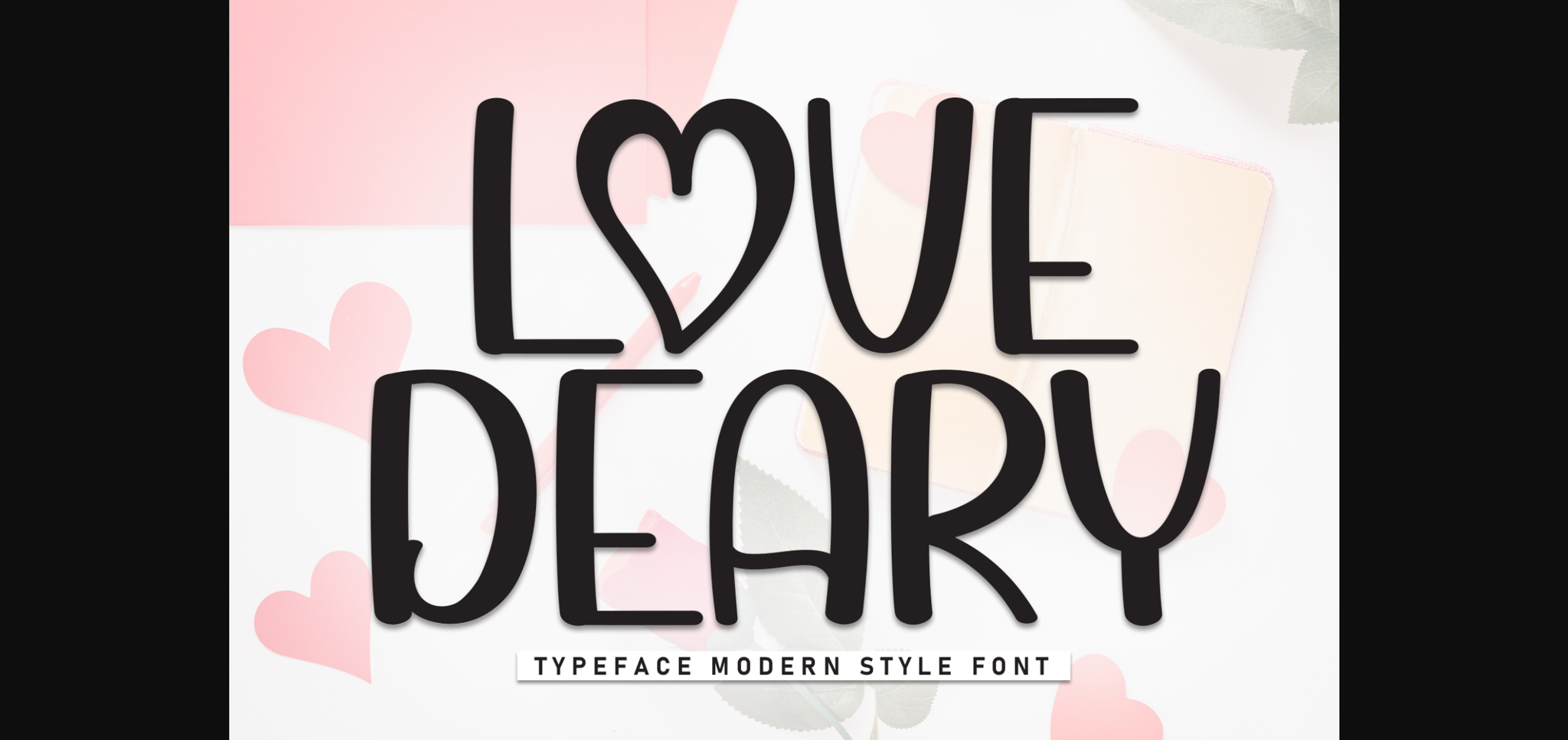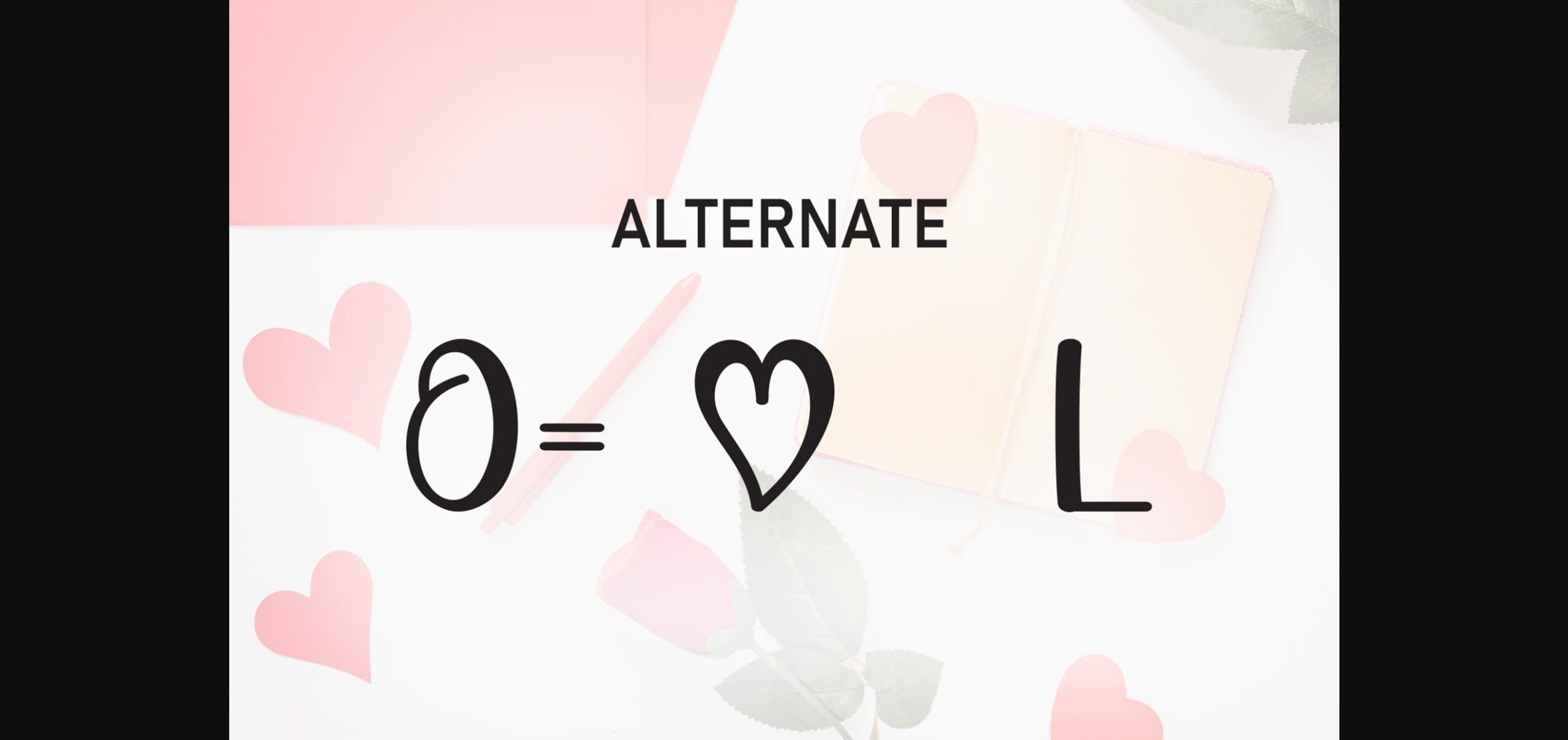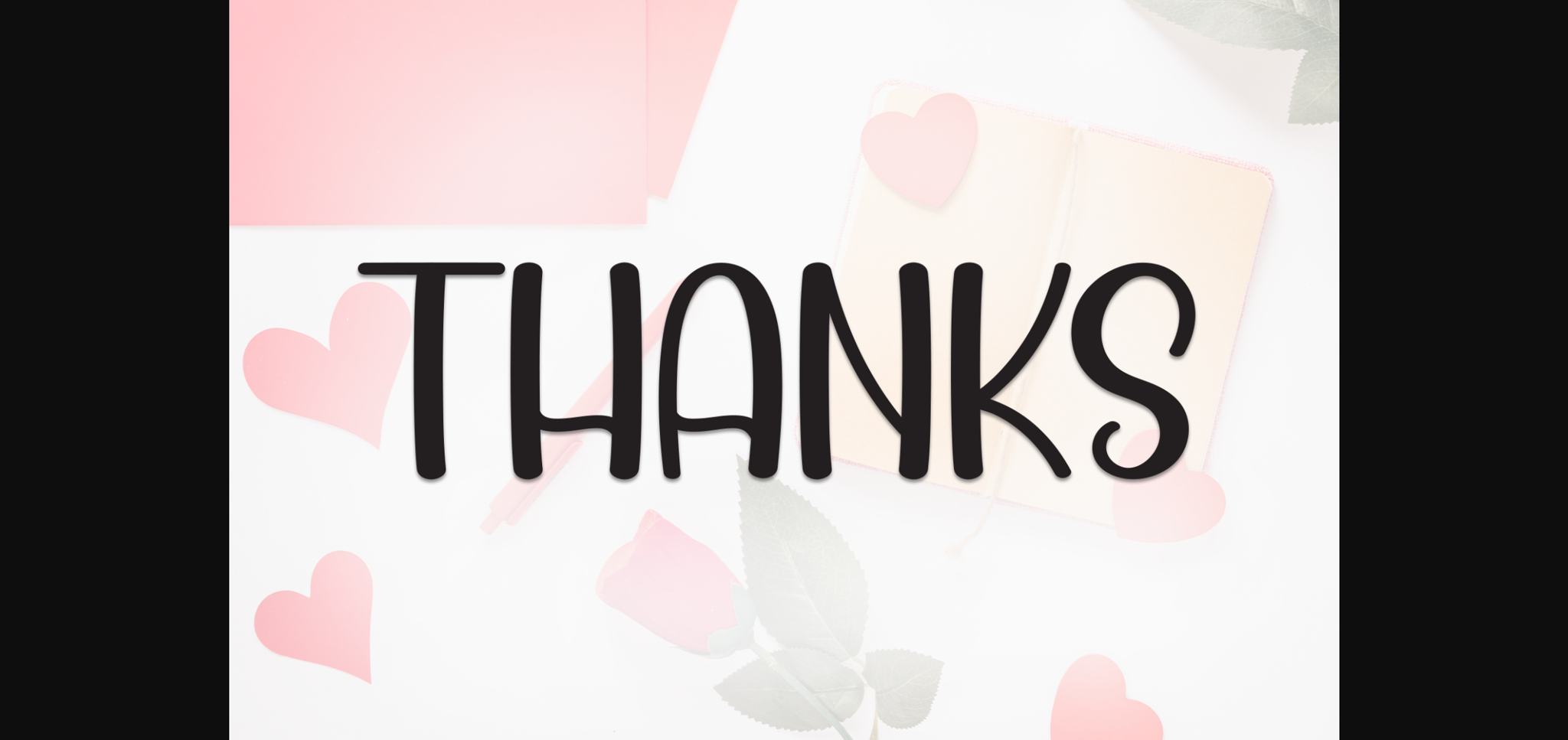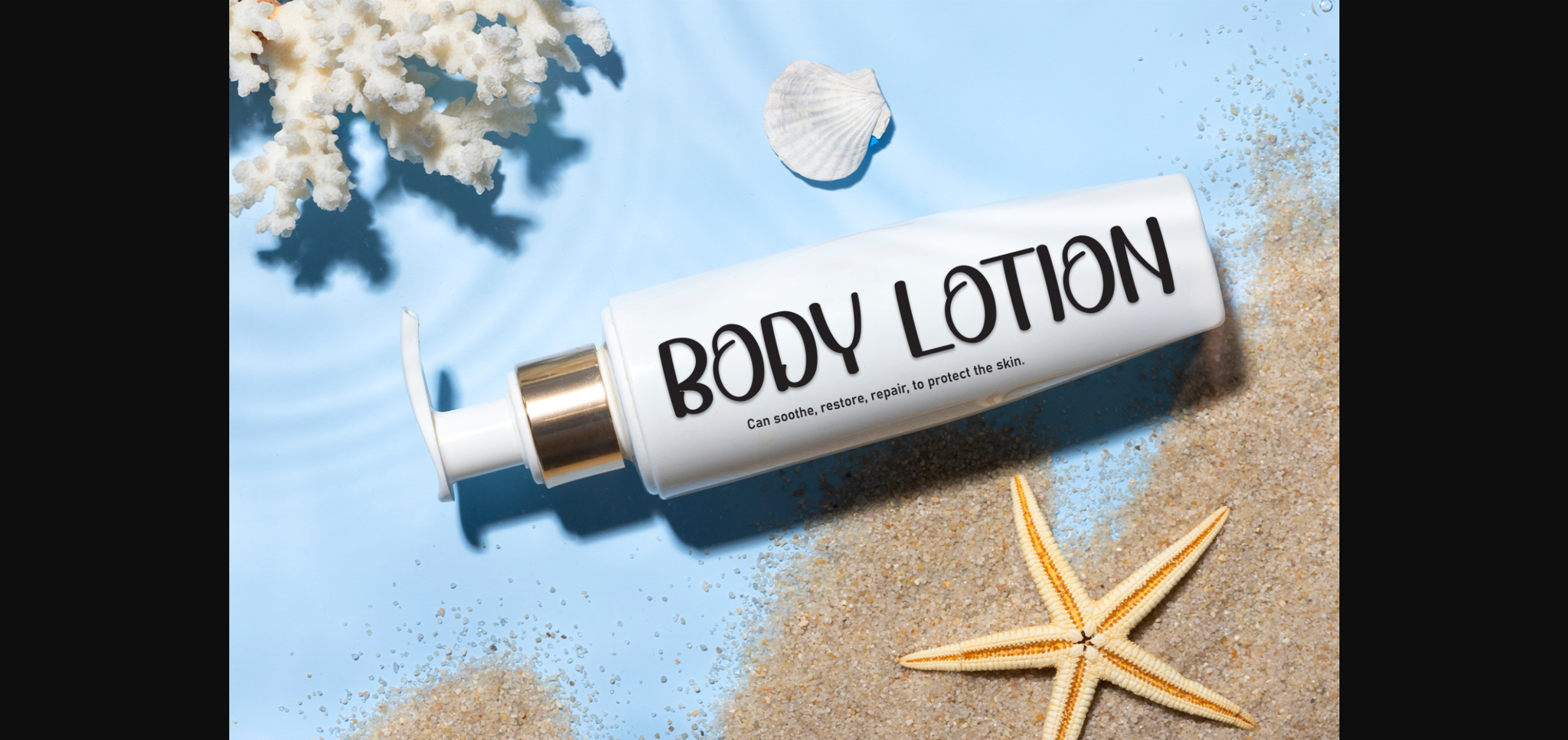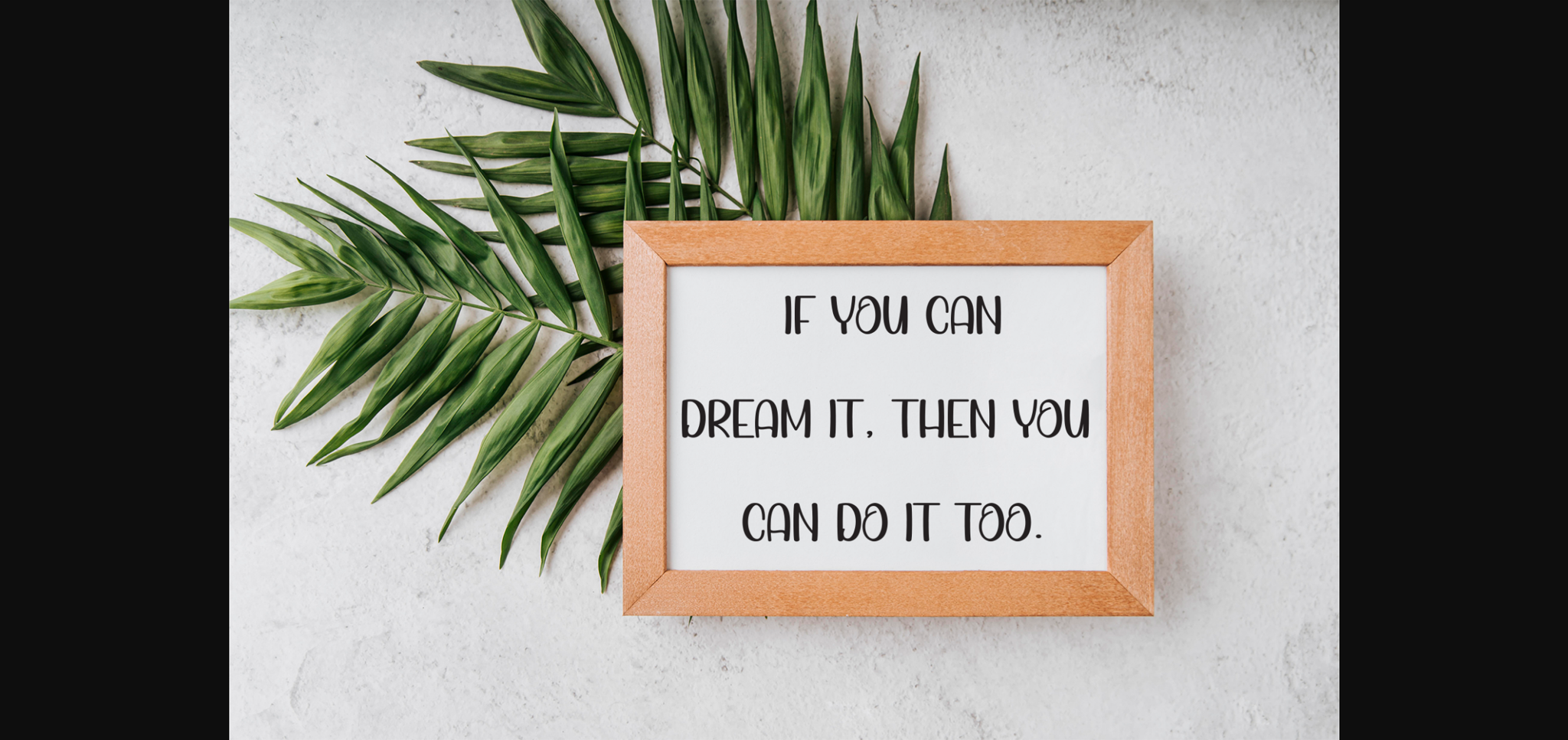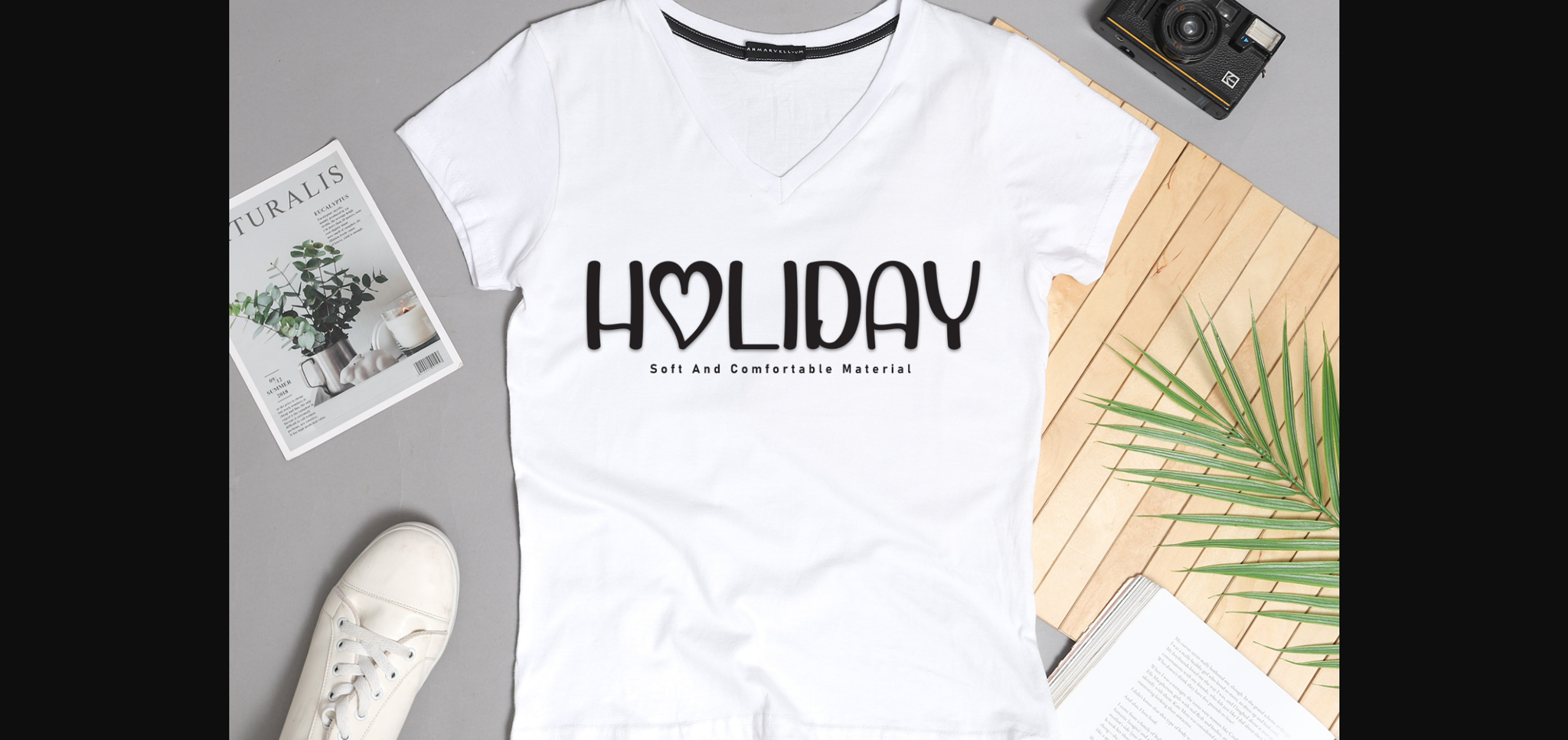
Love Deary Font
About Love Deary Font
Love Deary is a sweet and friendly sans-serif font. Cute and versatile this font is ideal for writing wedding invitations, cards, or any other design that might need a fun touch!